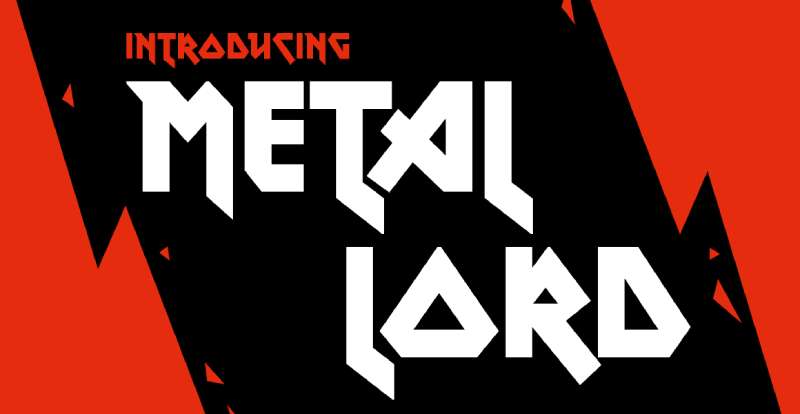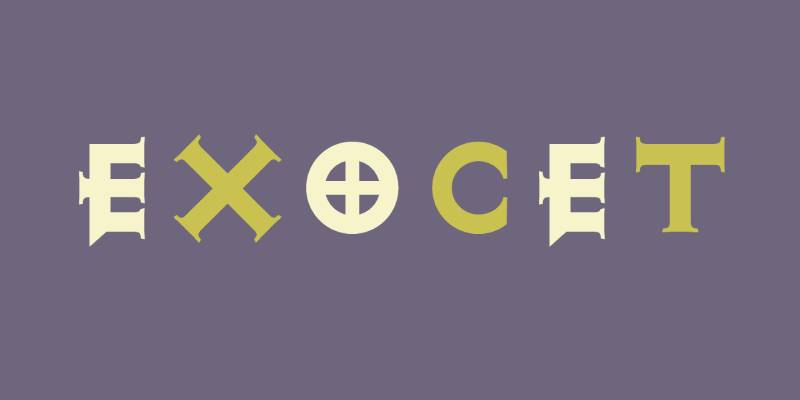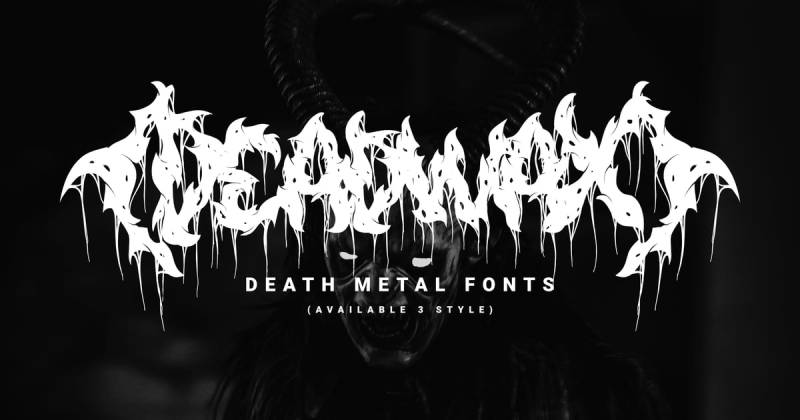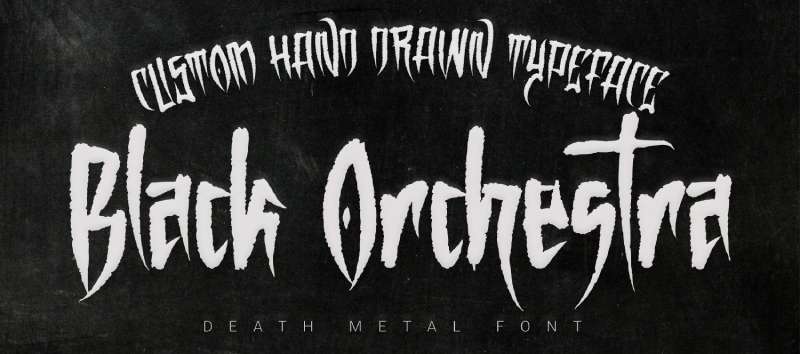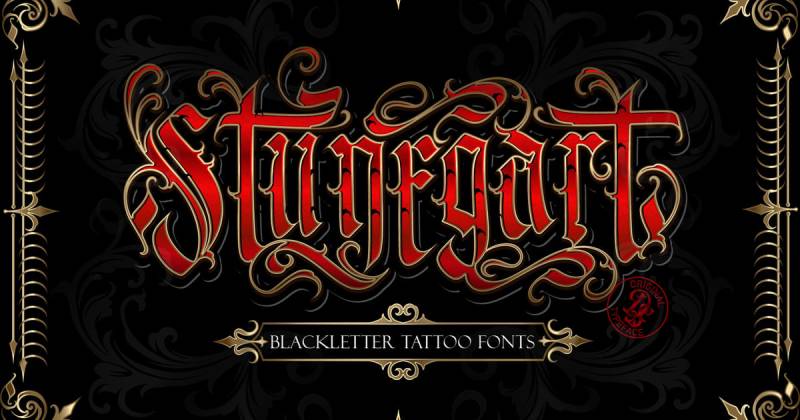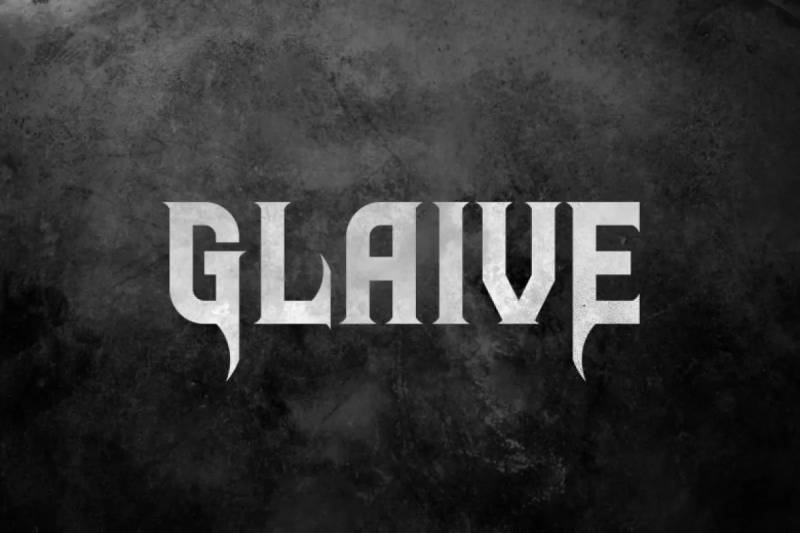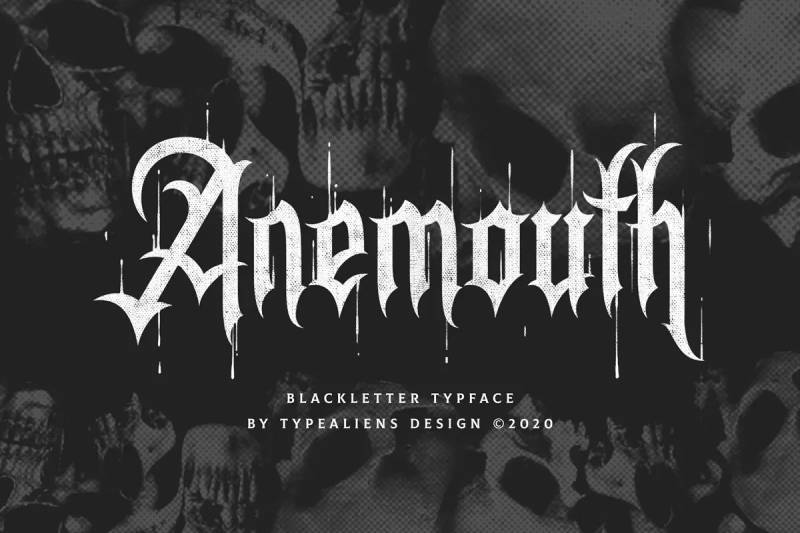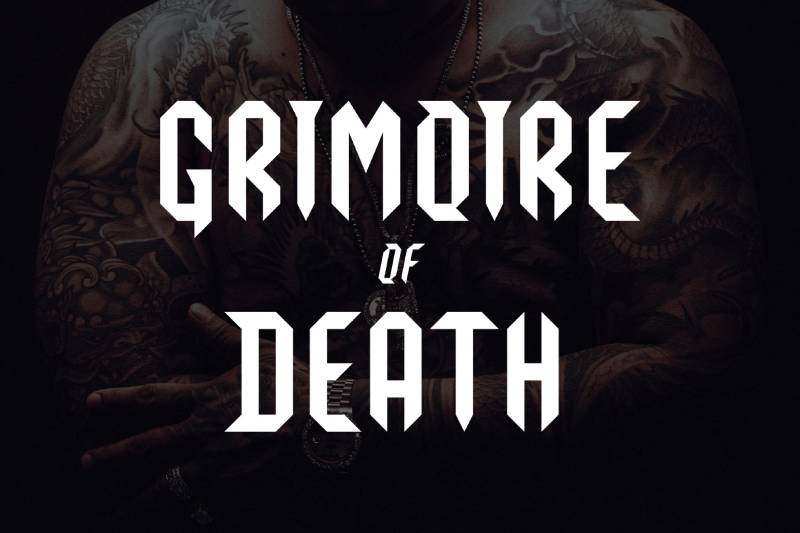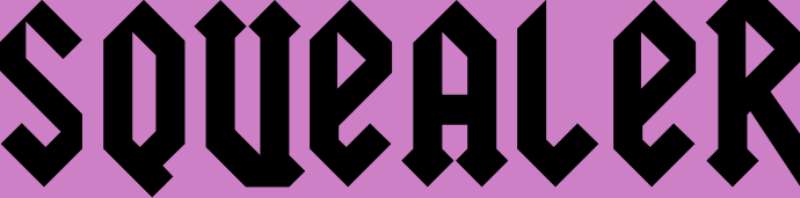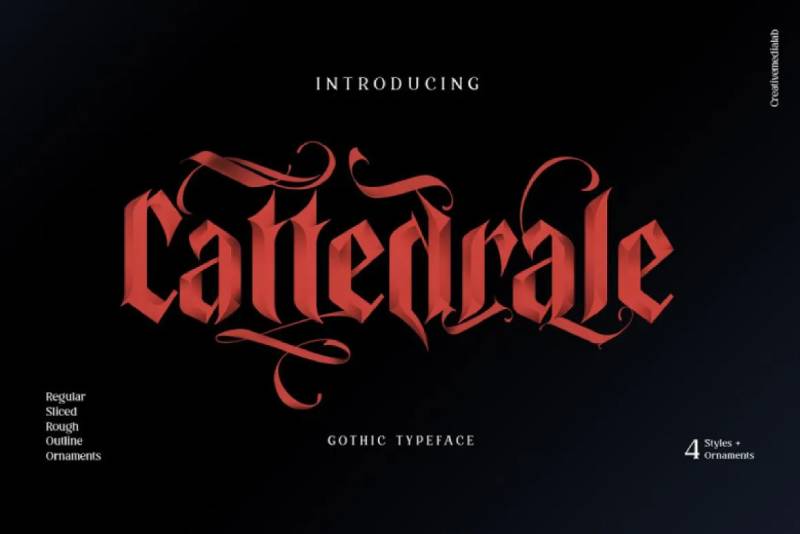
Band logos don’t design themselves. And the wrong font kills the vibe faster than a broken amp.
Finding the best heavy metal fonts matters whether you’re designing album covers, concert posters, or merchandise for a thrash band. Gothic blackletter, angular display types, death metal distortion. Each subgenre demands its own typographic voice.
This guide breaks down 25 fonts built for metal aesthetics. You’ll find:
- Designer credits and release history
- Style characteristics for each typeface
- Pairing recommendations that actually work
From Iron Maiden-inspired lettering to Diablo-style stone carving, these typefaces deliver the aggressive energy your projects need.
The Best Heavy Metal Fonts
| Font Name | Primary Context | Stylistic Attributes | Optimal Use Cases |
|---|---|---|---|
| Metal Lord | Classic heavy metal aesthetic with authoritative presence | Bold letterforms, angular geometry, commanding structure | Band logos, album titles, festival branding |
| Exocet | Military-inspired industrial design with mechanical precision | Stencil construction, utilitarian edges, technical appearance | Industrial metal projects, thrash aesthetics, tactical themes |
| Metalista | Contemporary metal typography with refined aggression | Sharp serifs, dynamic contrast, modern edge details | Modern metal branding, merchandise design, digital presence |
| Backbone | Structural integrity with hardcore influences | Thick strokes, condensed spacing, dense weight distribution | Hardcore punk crossover, heavy typography needs, impact statements |
| Deadwax | Vintage vinyl revival with distressed character | Weathered texture, analog warmth, retro roughness | Classic rock revival, vinyl releases, nostalgic branding |
| Black Orchestra | Theatrical darkness with symphonic grandeur | Dramatic serifs, orchestral elegance, gothic sophistication | Symphonic metal, gothic bands, theatrical productions |
| Stunegart | German-influenced precision with technical metal roots | Geometric precision, technical construction, engineered forms | Technical death metal, progressive projects, engineering themes |
| Dramaga | Cinematic intensity with epic narrative qualities | Dramatic flourishes, cinematic weight, narrative flow | Concept albums, storytelling projects, epic metal themes |
| Sword | Medieval weaponry aesthetics with warrior iconography | Sharp terminals, blade-like edges, cutting geometry | Power metal, fantasy themes, battle imagery |
| Glaive | Polearm elegance with medieval combat heritage | Extended serifs, sweeping curves, weapon-inspired terminals | Folk metal, historical themes, warrior band branding |
| Anemouth | Organic darkness with biological horror undertones | Irregular forms, tentacle-like extensions, biomechanical elements | Death metal, horror themes, grotesque artwork |
| Aviorte | Avian aggression with predatory bird characteristics | Talon-like serifs, wing-inspired angles, raptor aesthetics | Black metal, nature-themed bands, predatory imagery |
| Smackdead | Brutal impact with violent confrontational energy | Aggressive angles, collision dynamics, forceful construction | Brutal death metal, grindcore, extreme aggression contexts |
| Metal Curve | Industrial curvature with metallic manufacturing qualities | Bent metal aesthetics, forged appearance, manufacturing lines | Industrial metal, factory themes, mechanical concepts |
| Grimoire of Death | Occult manuscript aesthetics with ancient spell book character | Calligraphic darkness, mystical letterforms, arcane decoration | Occult black metal, ritual themes, esoteric content |
| Squealer | High-frequency shrieking with piercing vocal qualities | Sharp points, screaming angles, distorted intensity | Extreme vocals showcase, grindcore, noise projects |
| Cattedrale | Cathedral architecture with sacred space reverberations | Gothic arches, ecclesiastical forms, religious architecture | Doom metal, gothic atmosphere, cathedral doom subgenre |
| Rocksane | Balanced rock heritage with rational metal structure | Stable letterforms, controlled aggression, measured weight | Hard rock crossover, accessible metal, mainstream appeal |
| Black Dreams | Nocturnal visions with subconscious horror exploration | Ethereal darkness, dreamlike distortion, surreal qualities | Atmospheric black metal, nightmare themes, psychological horror |
| Hellfire Flames | Infernal combustion with diabolical fire imagery | Flame-like extensions, burning edges, inferno dynamics | Thrash metal, hell themes, satanic imagery |
| Death Crow | Carrion bird symbolism with mortality omens | Corvid characteristics, death imagery, scavenger aesthetics | Death metal, morbid themes, dark nature symbolism |
| Night Crow | Nocturnal corvid presence with shadowed wilderness | Midnight silhouettes, shadow forms, twilight mystery | Atmospheric metal, night themes, pagan black metal |
The right metal typeface transforms a decent design into something brutal. Pick one, crank it up, and let your typography scream.